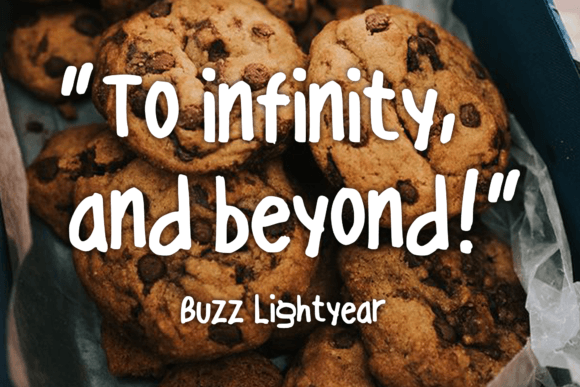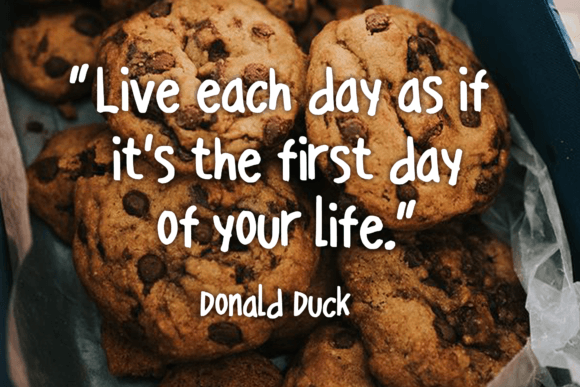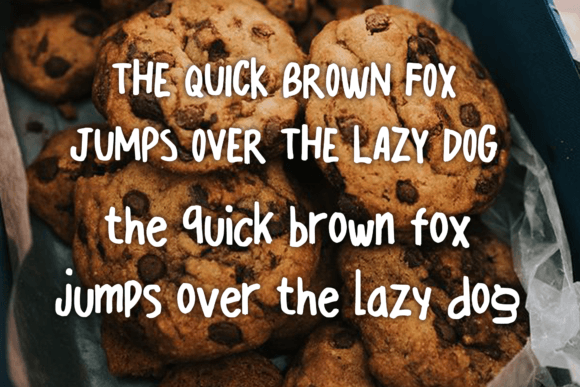
Sweet Cookies Font
About Sweet Cookies Font
Add Fun to Your Designs with Sweet Cookies
Looking for a font that instantly adds charm and character? The Sweet Cookies font download is your go-to choice. This whimsical handwritten typeface brings a friendly and playful vibe to a wide range of projects.
Ideal for a Variety of Creative Projects
Thanks to its lighthearted personality and clean stroke style, Sweet Cookies is great for:
• T-shirt and hoodie designs
• Stickers, posters, and cards
• Kids’ book illustrations and covers
• Invitations, crafts, and DIY projects
No matter your medium, this font helps your ideas stand out while staying easy to read.
Whimsical Style, Endless Possibilities
Its balance of bold and casual makes it incredibly versatile. Whether you’re designing for children or simply want a cheerful touch, Sweet Cookies delivers. Add it to your font library and use it across both personal and professional projects.